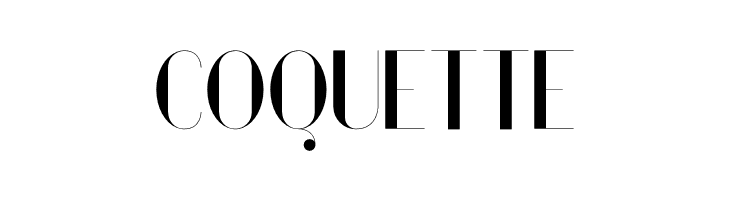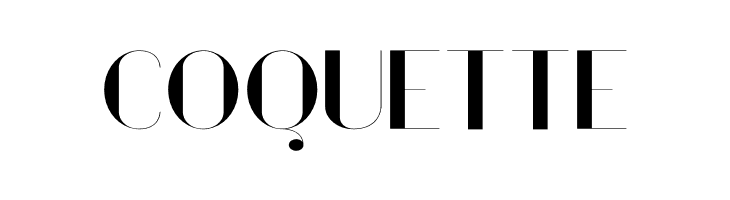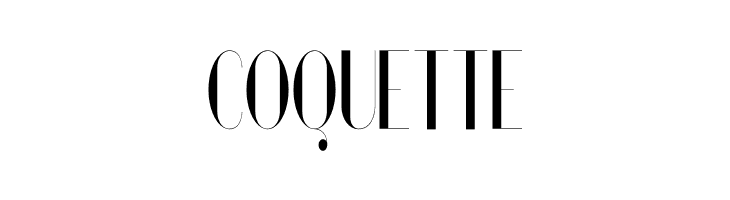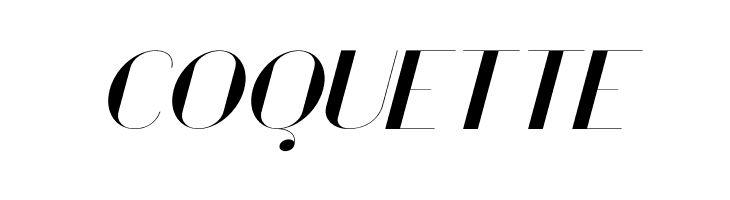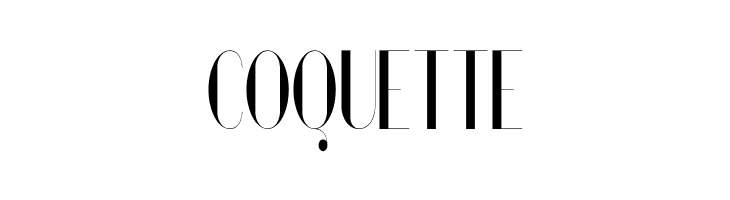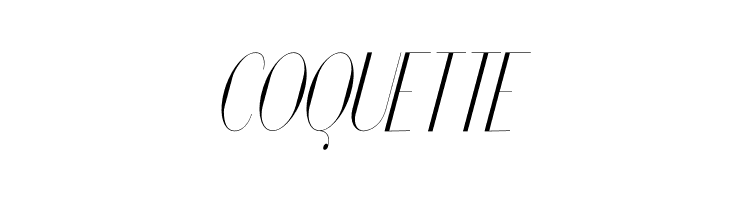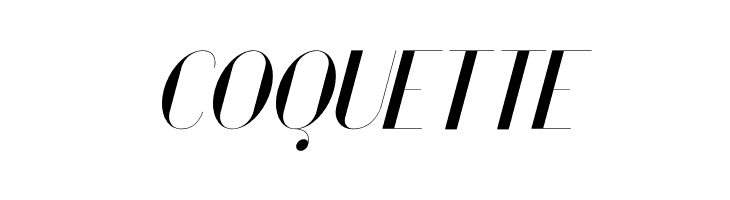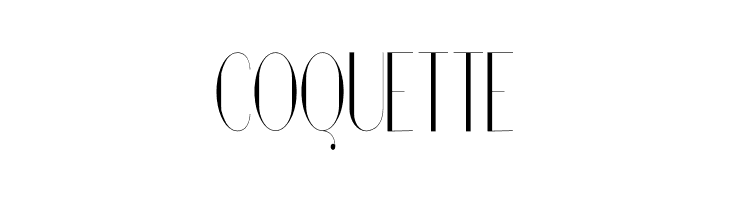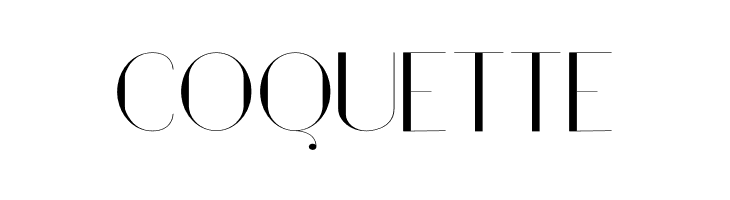
A bold, narrow font with high contrast and elegant styling.
A bold, wide, and italic font with high contrast and elegant curves.
A bold, high-contrast font with modern elegance and playful curves.
A bold, italicized font with high contrast and modern elegance.
A bold, elegant font with high contrast and narrow letterforms.
A bold, wide font with high contrast and modern elegance.
A sleek, high-contrast font with elegant curves and modern style.
A sleek, narrow font with high contrast and modern elegance.
An elegant, light, narrow, and italicized font with high contrast and refined style.
An elegant, high-contrast font with decorative elements and modern flair.